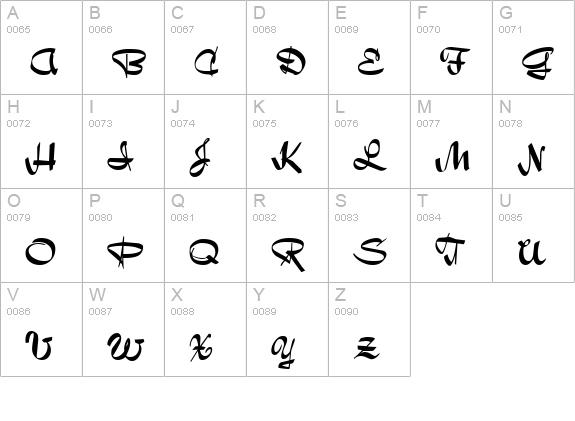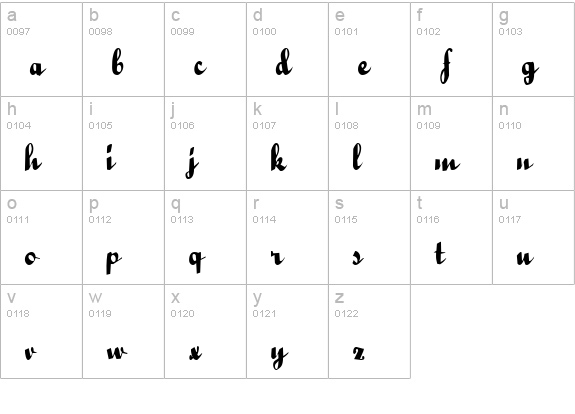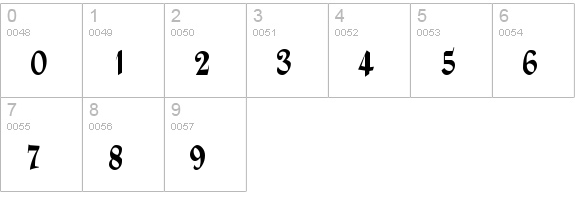
Bailey Regular is the standard, neutral variant in the Bailey typeface family \xE2\x80\x94 well suited to general body text, paragraphs, and standard typographic work.
Bailey Regular font is a versatile and timeless typeface that exudes elegance and sophistication. With its clean lines and classic design, this font is perfect for a wide range of projects, from branding to editorial design. The balanced proportions and subtle curves of Bailey Regular make it a highly readable choice for both print and digital applications. What's even better is that Bailey Regular font is available for free download at FontsMarket.com. So you can add this beautiful font to your collection without any cost. Don't miss out on the opportunity to enhance your designs with the timeless charm of Bailey Regular. Download it today and elevate your typography game to the next level.